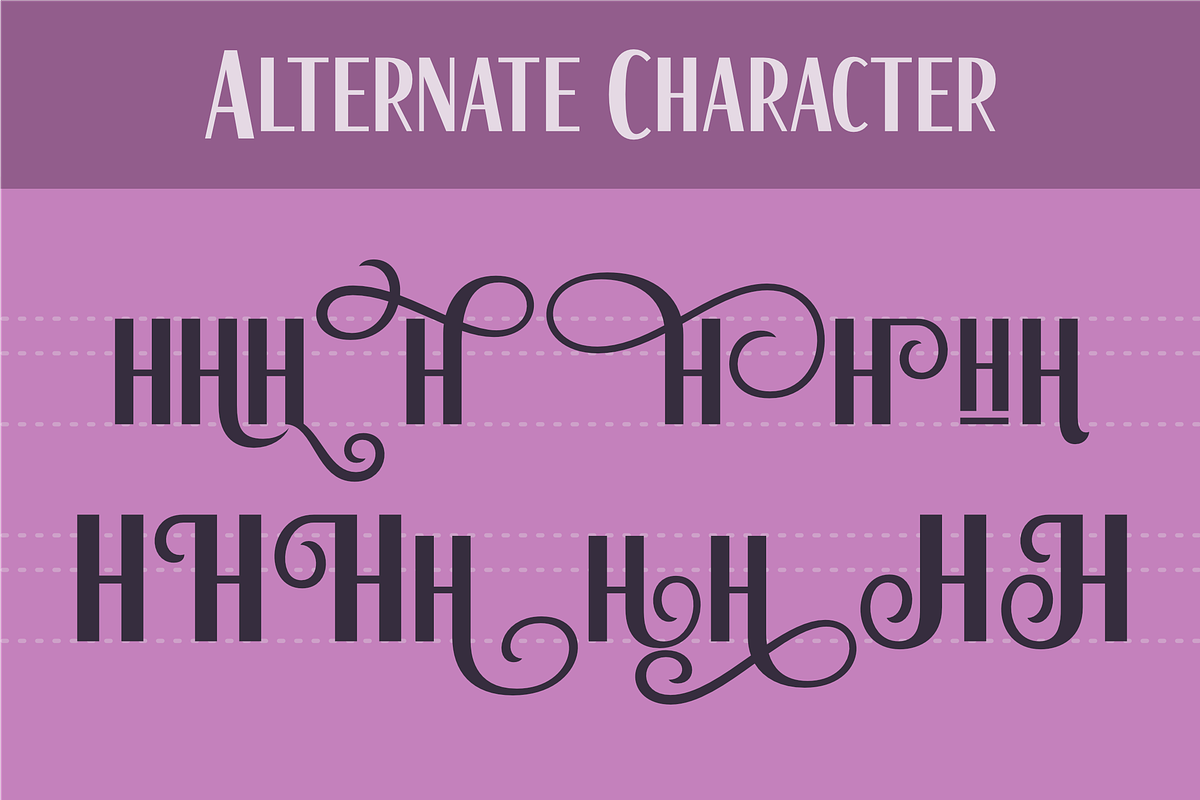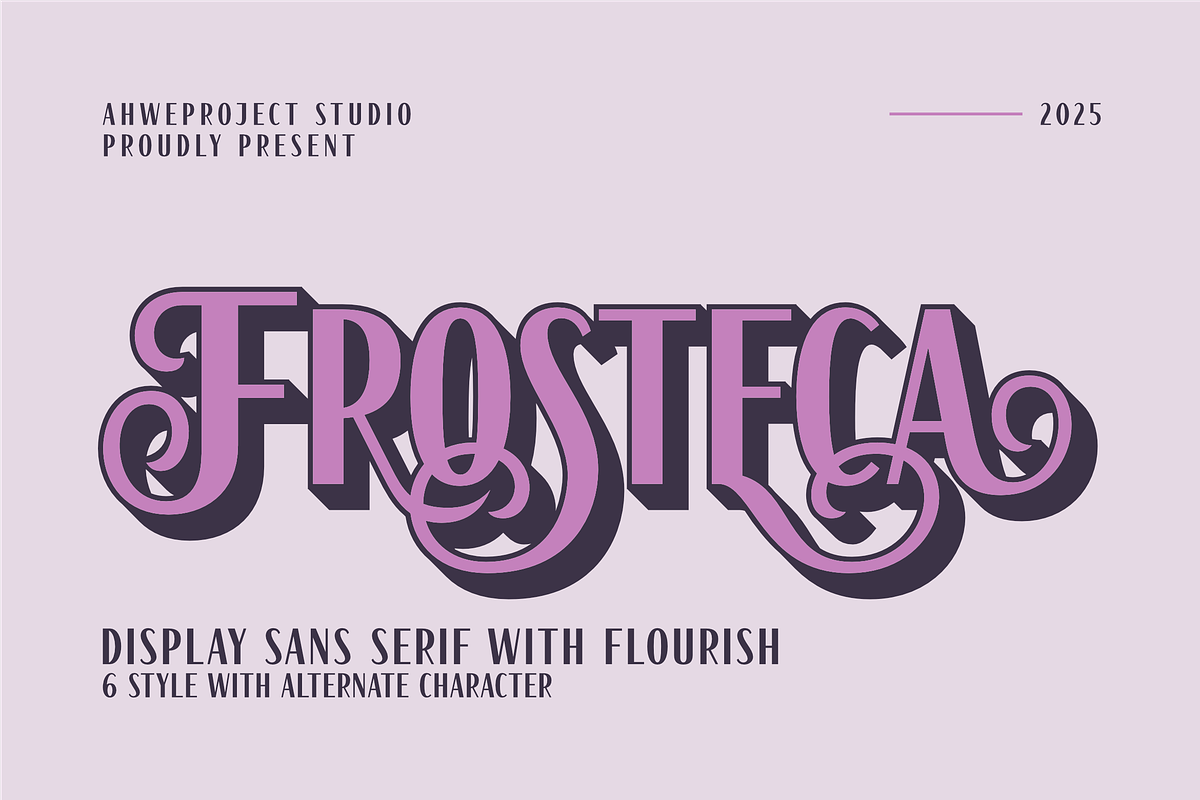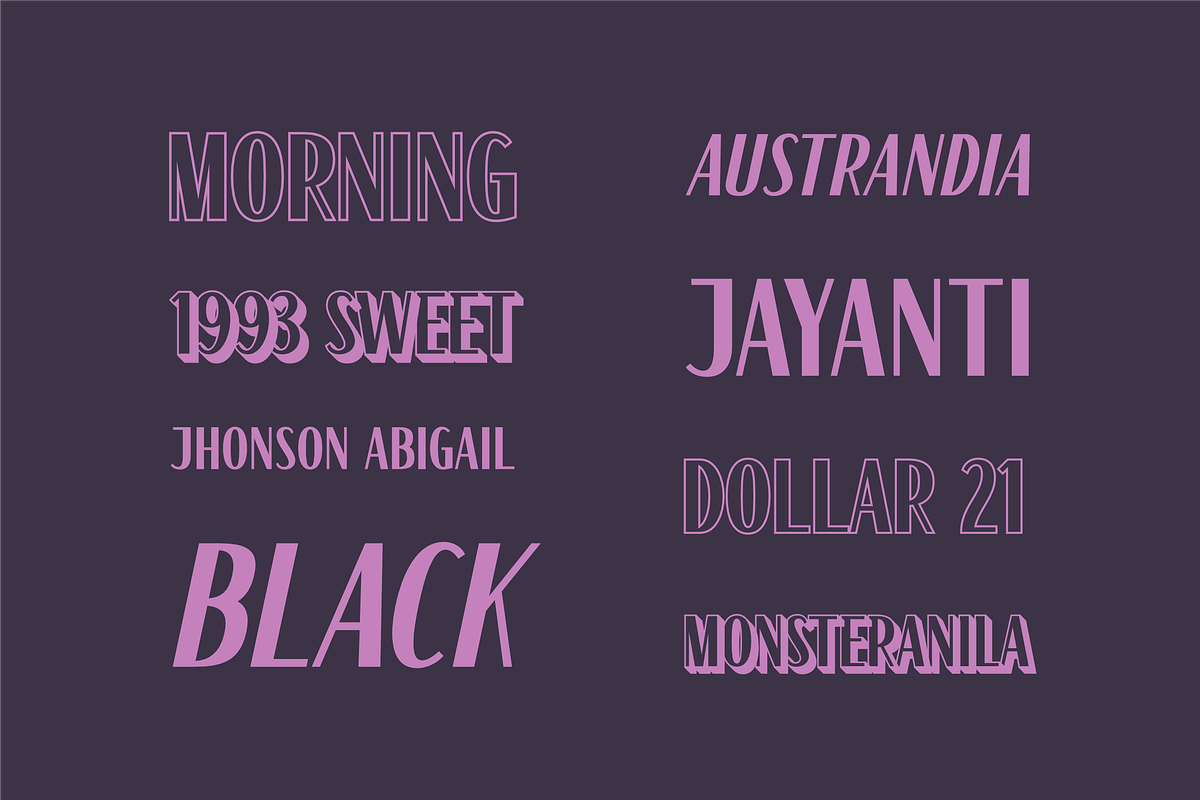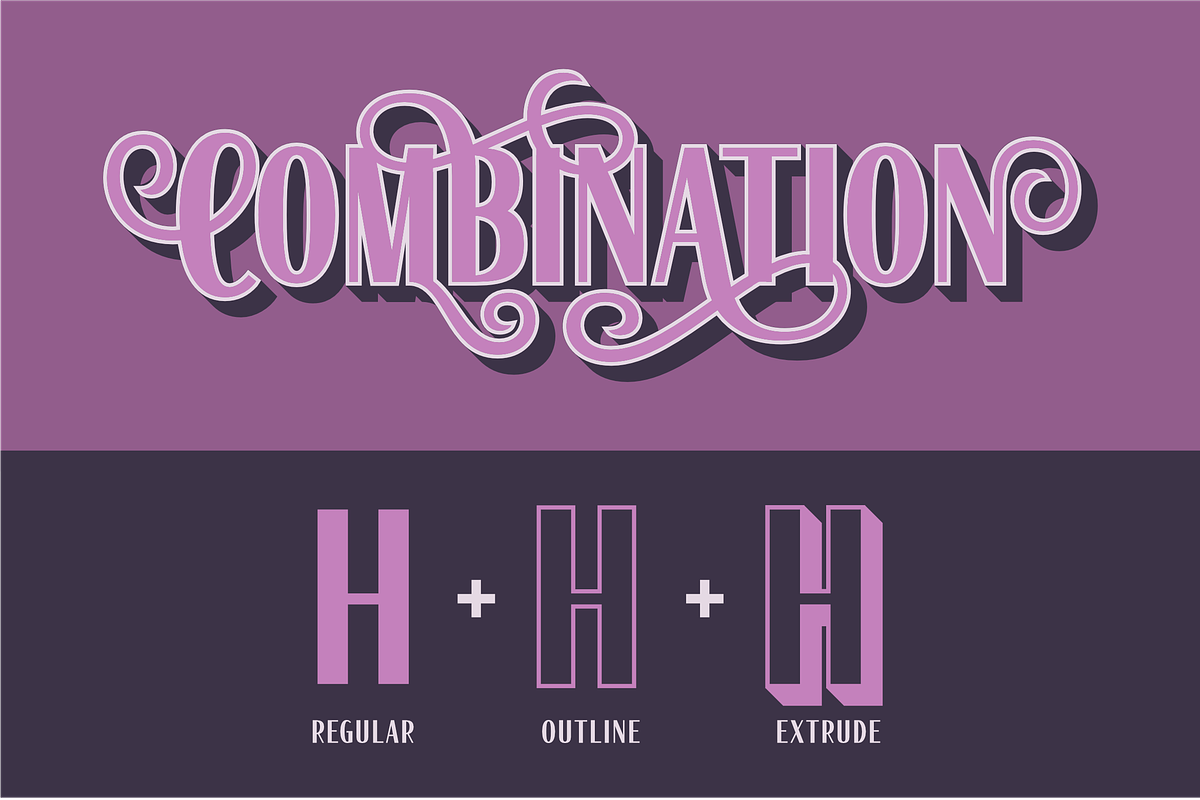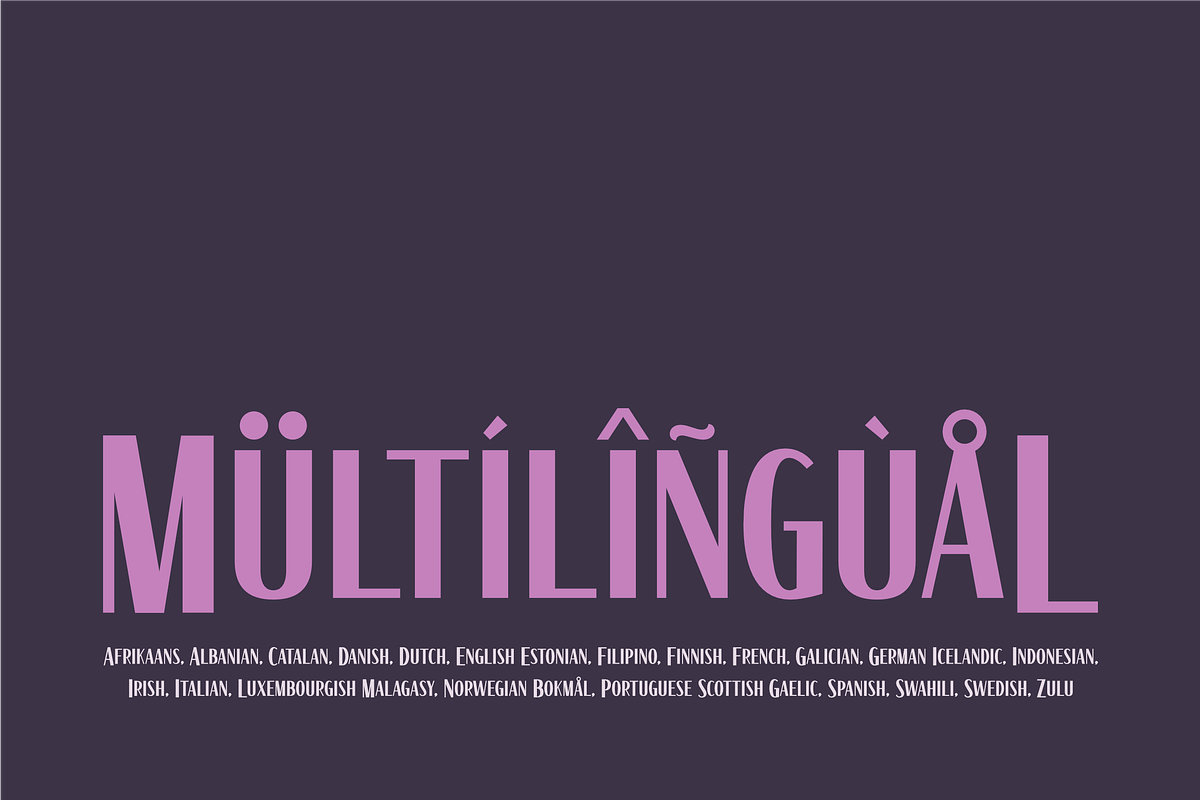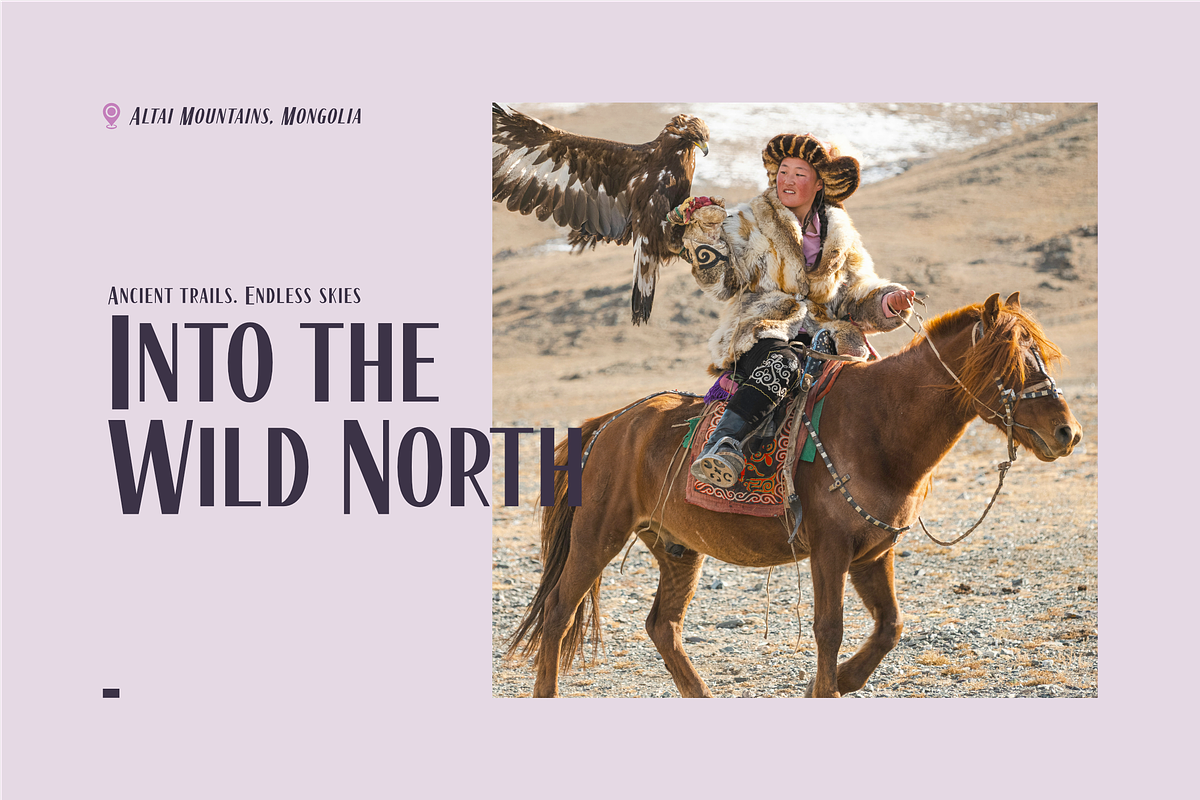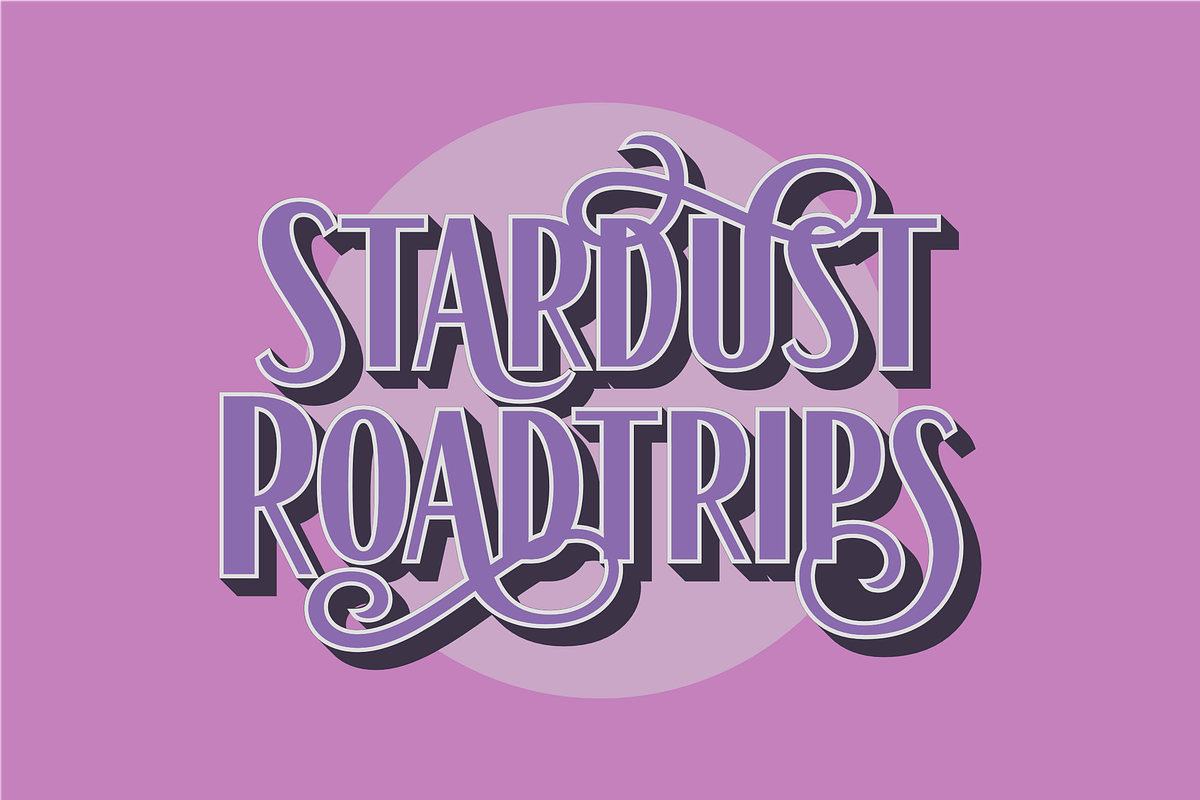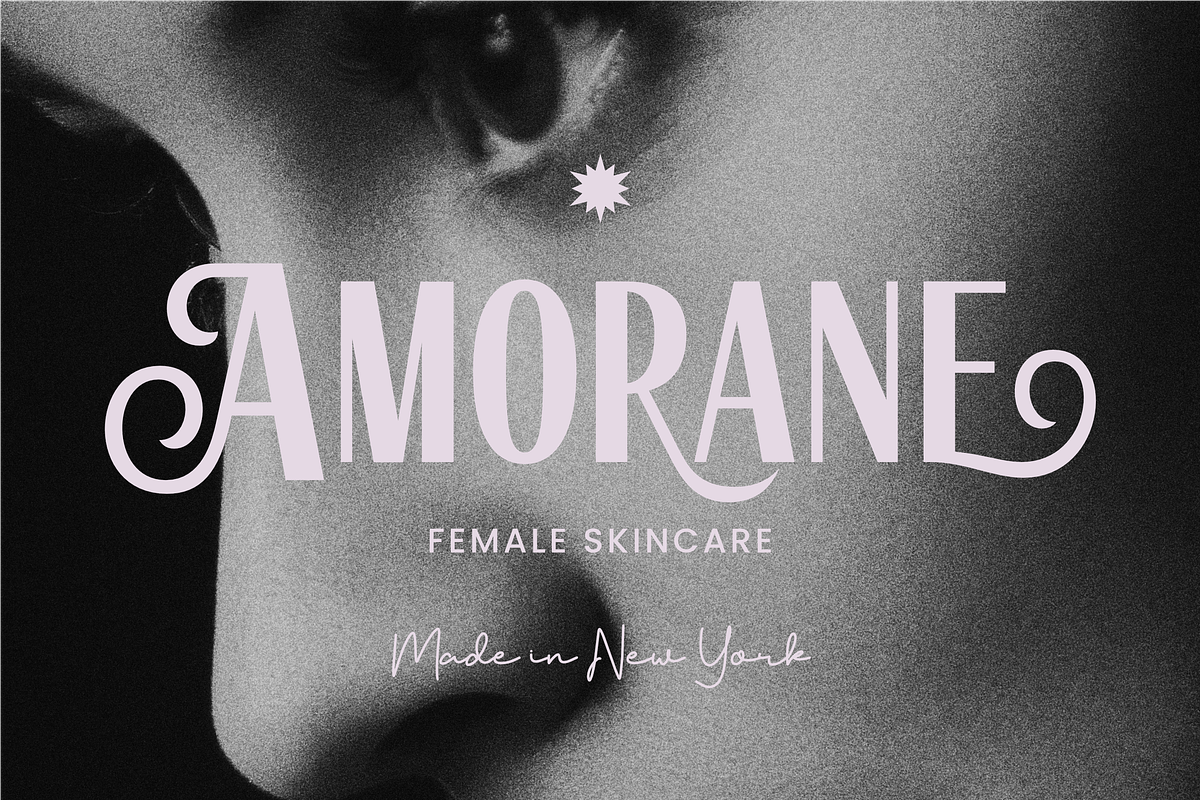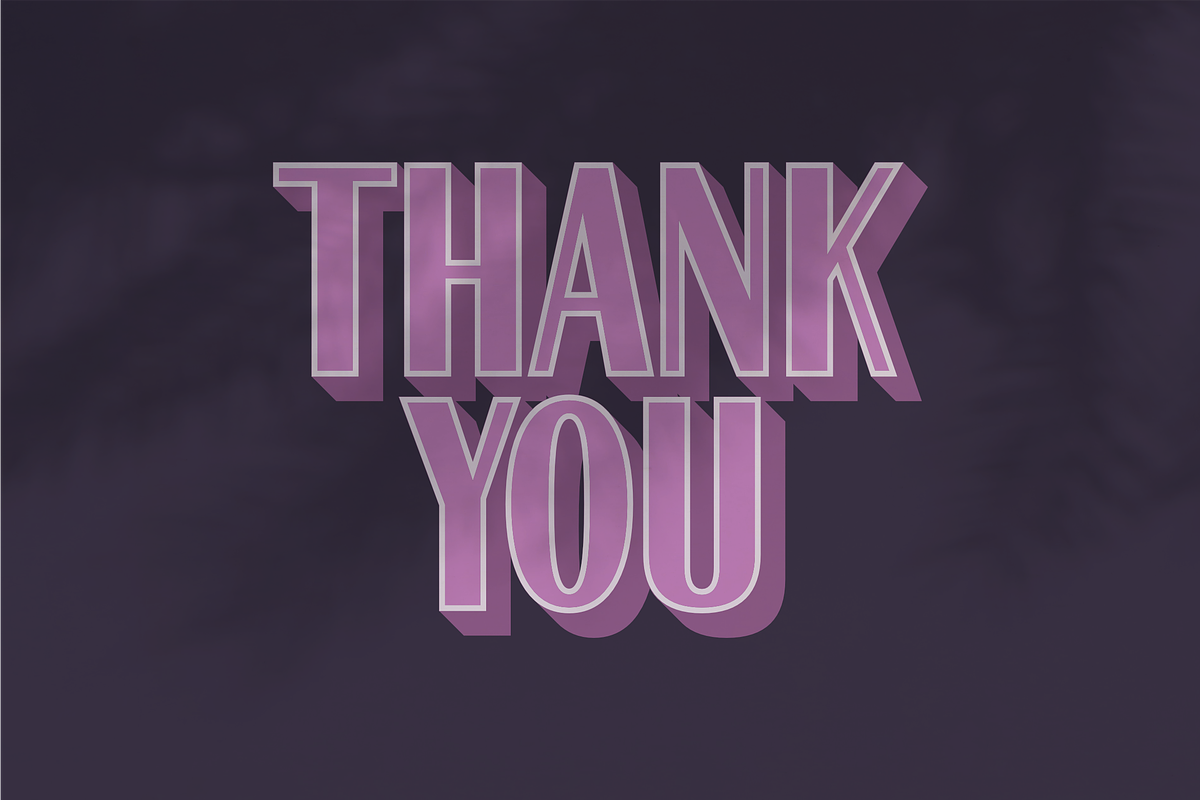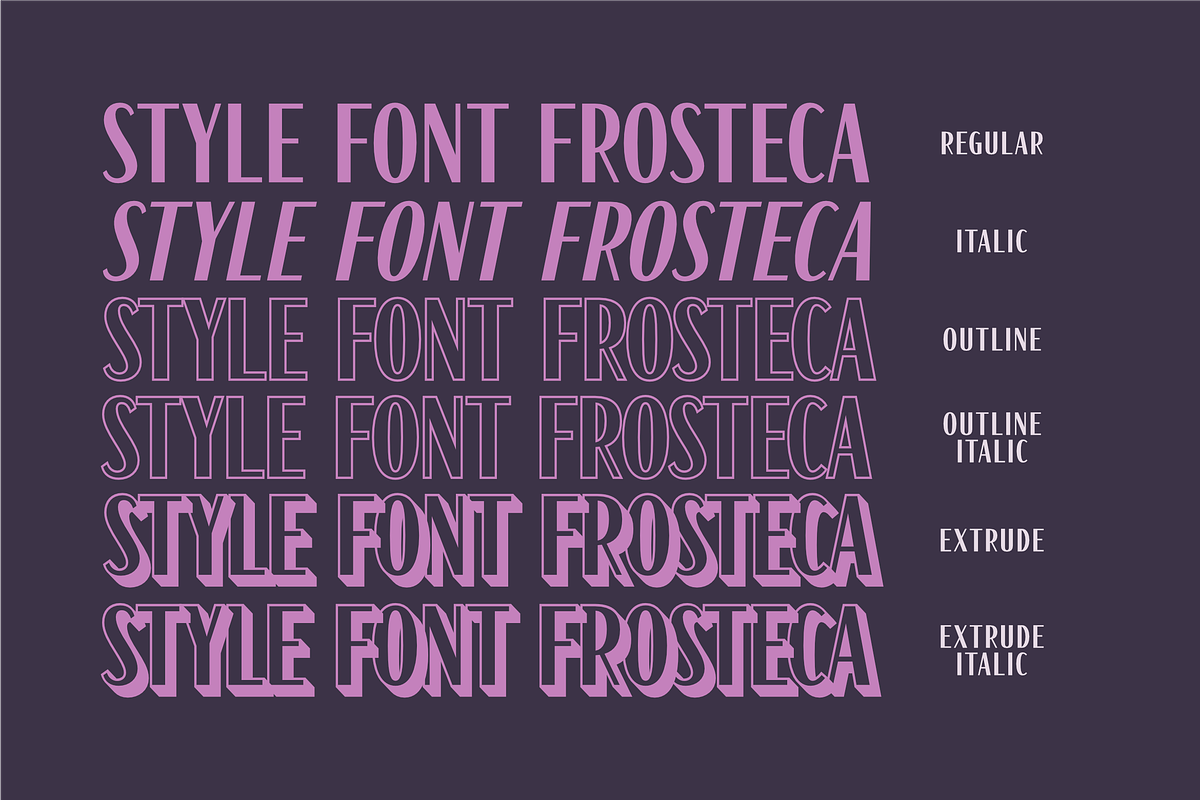
Frosteca
Frosteca is a bold and artistic display font that combines clean sans serif structure with beautiful flourish alternates. Designed to make your typography stand out, Frosteca is perfect for any design that needs a touch of elegance and creativity. This font is ideal for logos, branding, headlines, packaging, posters, merchandise, and more. With 6 different styles and a wide range of alternate characters, you can easily mix and match to create unique and eye-catching designs.